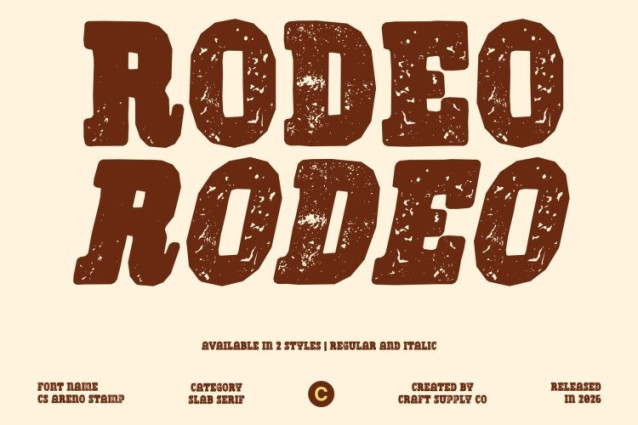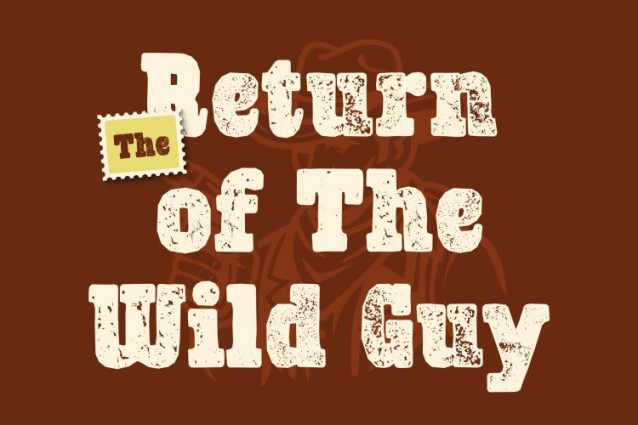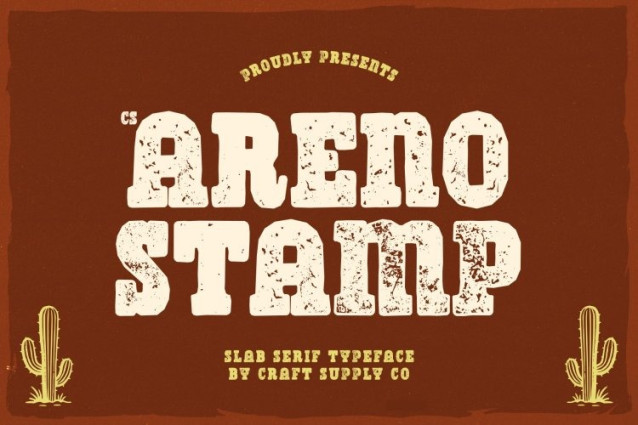
CS Areno Stamp Font This is a slab serif font that blends retro charm with modern assertiveness, enhanced by a stamped, slightly worn texture. Its bold slab serifs, sturdy construction, and vintage-inspired letterforms create a powerful visual identity with an unmistakable old-print character. The stamp effect adds grit and authenticity, giving each letter a handcrafted, timeworn presence that feels strong, confident, and full of personality.
High Visibility with Striking, Textured Impact
Designed for maximum readability, this font performs exceptionally well in display settings. Thick strokes, solid proportions, and the rough stamp texture ensure excellent visibility even from a distance. This makes it ideal for headlines, posters, signage, advertisements, and billboards where clarity and bold impact are essential.
Timeless Strength with a Modern Edge
While rooted in retro slab serif aesthetics, this font introduces a modern sensibility through clean geometry and balanced structure. The stamped texture softens the rigidity just enough to add warmth and character, resulting in a font that feels sturdy, dependable, and visually timeless.
Perfect for Bold Branding, Sports Graphics, and Dynamic Posters
This font thrives in designs that demand energy and authority. It’s a strong choice for sports visuals, bold branding identities, event posters, packaging, and promotional materials. With its retro spirit, heavy slab serifs, and vintage stamp finish, ensures every design looks powerful, memorable, and confidently commanding.